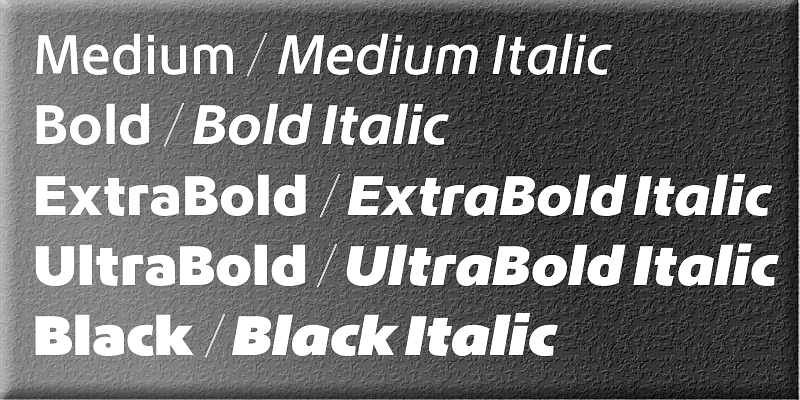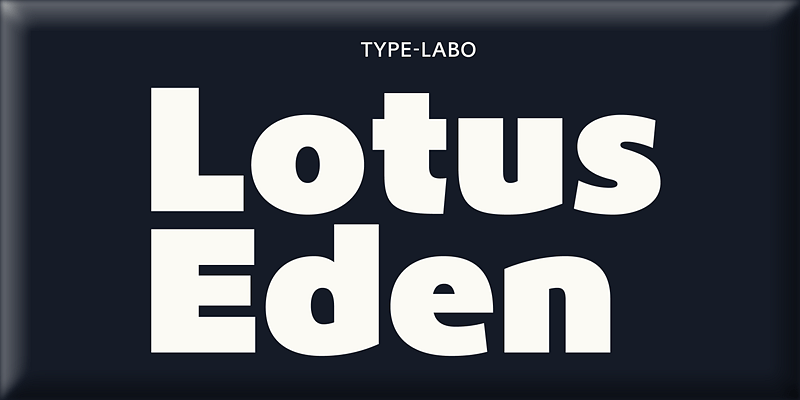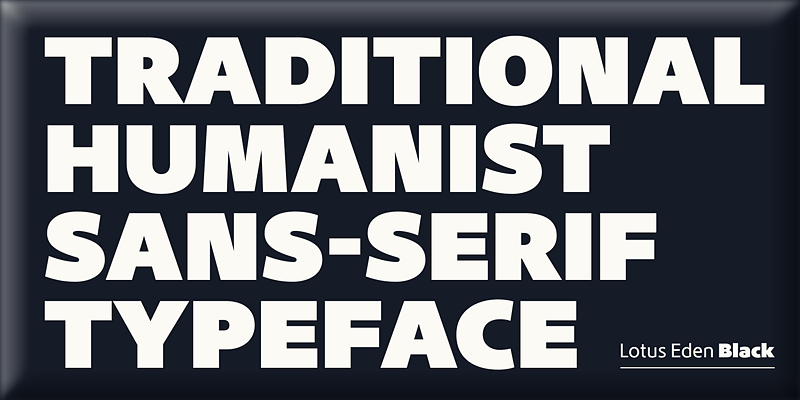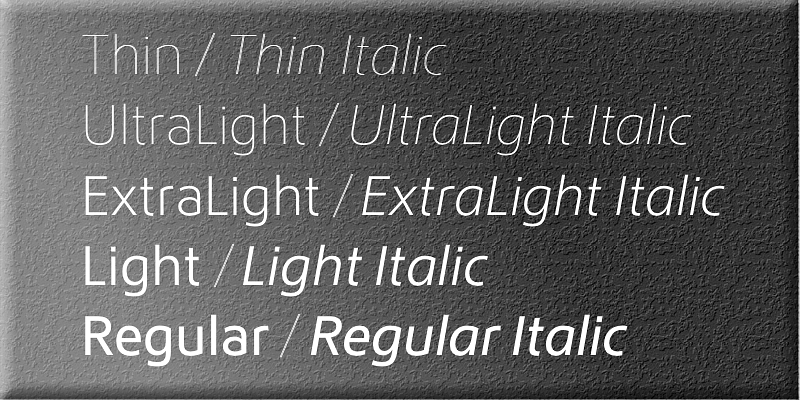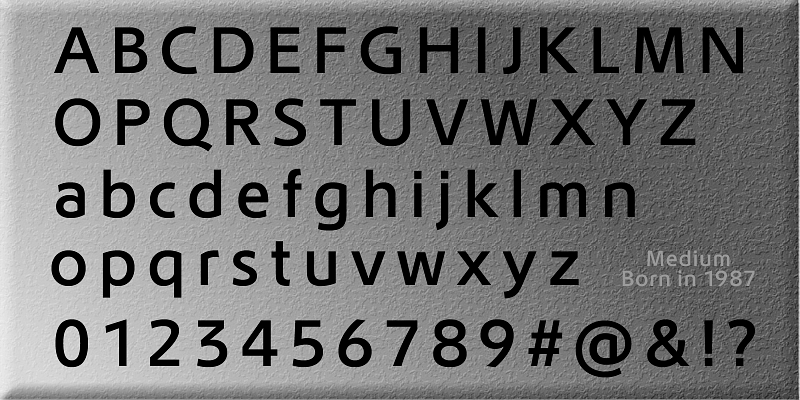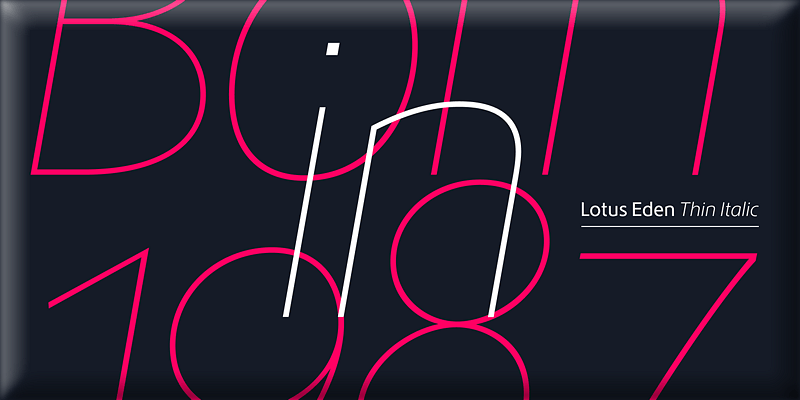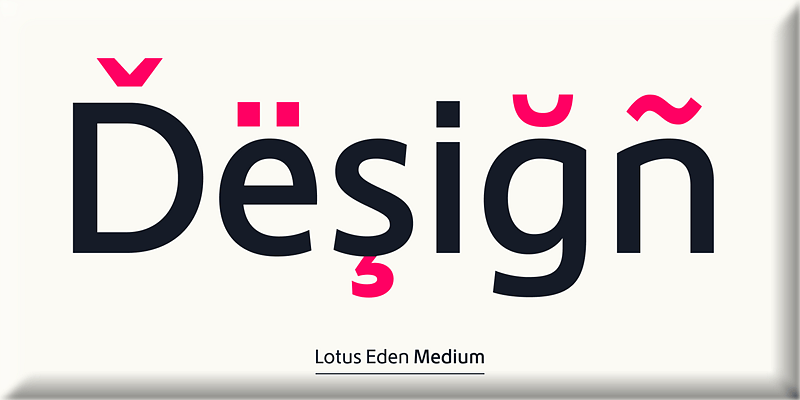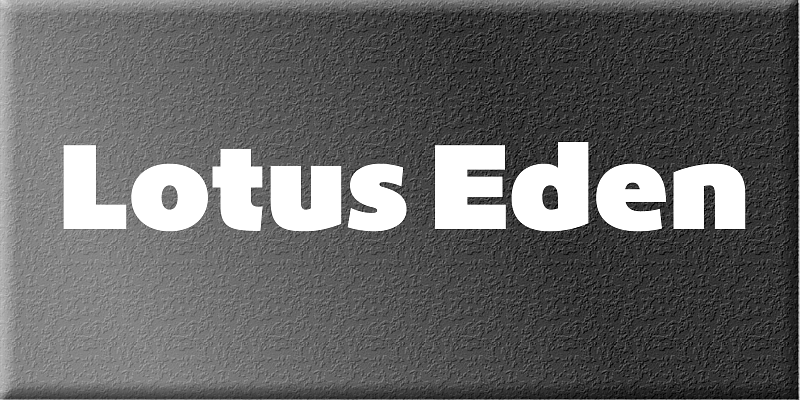
Lotus Medium, which won 2nd prize at the 1987 Morisawa Awards International Typeface Design Competition, has been released as Lotus Eden, a typeface family composed of twenty fonts – ten weights each of Roman and Italic. Soft, smooth curves give this sans-serif design a simplicity and elegance. Each font has 639 glyphs and supports the following glyph sets: Mac OS Roman, Windows-1252 and Adobe Latin 3. Lotus Eden also supports OpenType features, such as small capitals, old-style figures, case-sensitive forms, fractions, superscripts, etc., for high-quality typography.